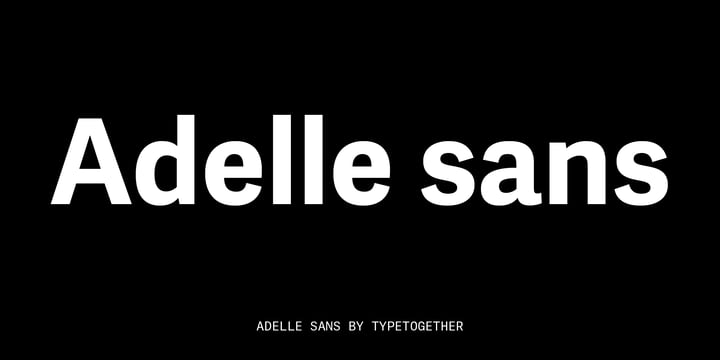
Adelle Sans
by TypeTogether
The Adelle Sans Font Family was designed by Veronika Burian, José Scaglione and published by TypeTogether. Adelle Sans contains 30 styles and family package options. More about this family
The Adelle Sans font family by José Scaglione and Veronika Burian provides a more clean and spirited take on the traditional grotesque sans. As is typical with TypeTogether typefaces, the most demanding editorial design problems were taken into consideration during its creation. The combination of lively character and unobtrusive appearance inherent to grotesque sans serifs make it an utterly versatile tool for every imaginable situation. Whether for global branding, screens, signage and advertising, or UI, the keyword behind Adelle Sans’s use is flexibility.
To save space and keep legibility high, Adelle Sans is available in eight weights with matching italics and includes a condensed width of seven weights with their matching italics. Each of these 30 styles hits the perfect tone as a headline punch or subdued background hum, and the condensed widths are adept at setting short texts while retaining the expected personality.
Rooted in the belief that broad language support is crucial to modern global type design, the Latin-matching variants are yet another push in TypeTogether’s ongoing multilingual efforts. The Latin script may have been first, but Adelle Sans has thus far been expanded into an exhaustive nine script family with extensive language support. Careful research and close collaboration with type experts yielded typographic consistency, legibility, and cultural awareness among all scripts, as well as filling the need for quality editorial typefaces in Arabic, Armenian, Chinese, Cyrillic, Devanagari, Latin Extended, Greek, and Thai, with more planned for the future.
In addition to the 30 Latin styles, all other scripts have between seven and fourteen styles, each of which has been engineered to optically match the proportions of its counterparts. And each script comes bundled with the Latin script to ensure an harmonious fit amongst any two or more Adelle Sans families in the same block of text.
The full Adelle Sans family delivers consistent, flexible, and personable results in multilingual documents, in apps, and multicultural branding worldwide. Its wide character set includes typographic niceties, small caps, several sets of figures, icons, and support for over 245 Latin-based languages. Be sure to check out the companions for Adelle Sans: Adelle, for a versatile and authoritative slab serif with no shortage of personality; and Adelle Mono, a two-width family flexible enough for developers and graphic designers alike.
Designers: Veronika Burian, José Scaglione
Foundry: TypeTogether